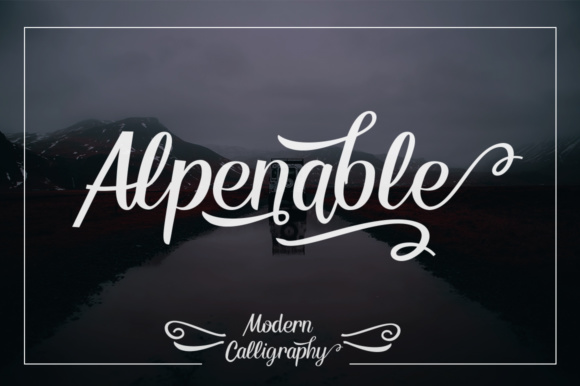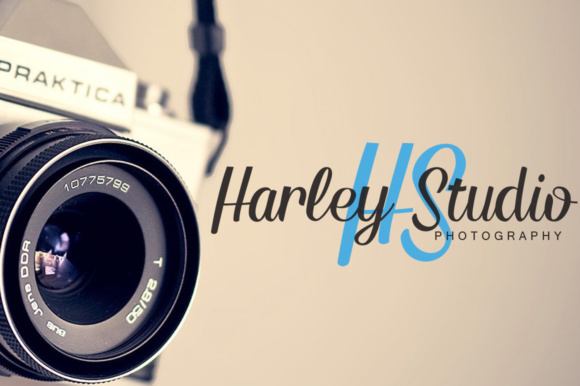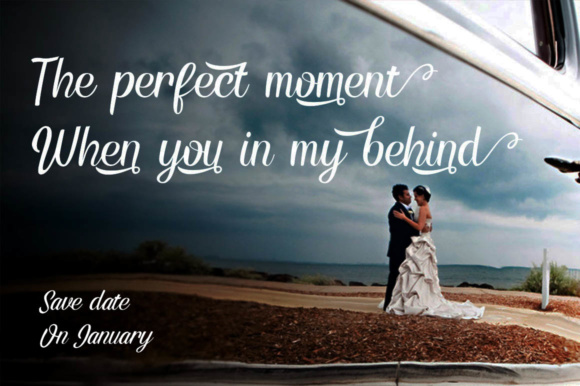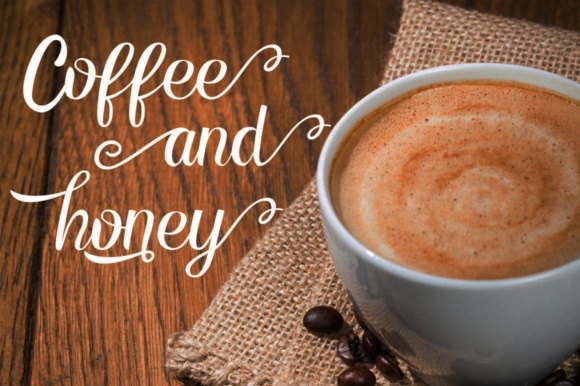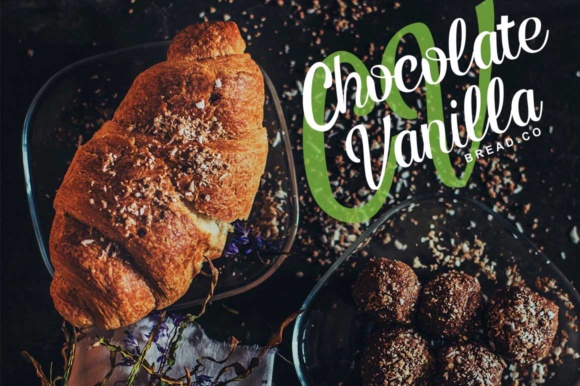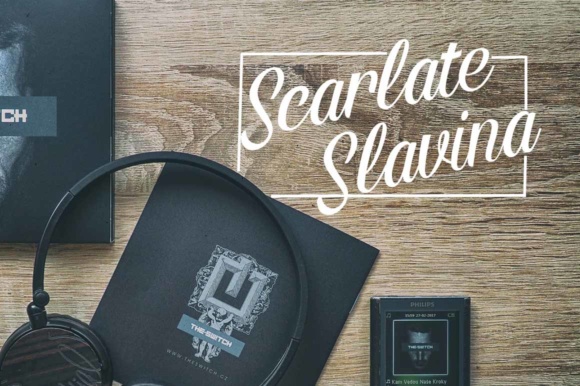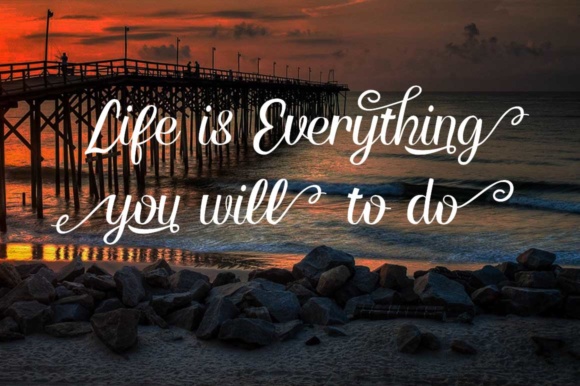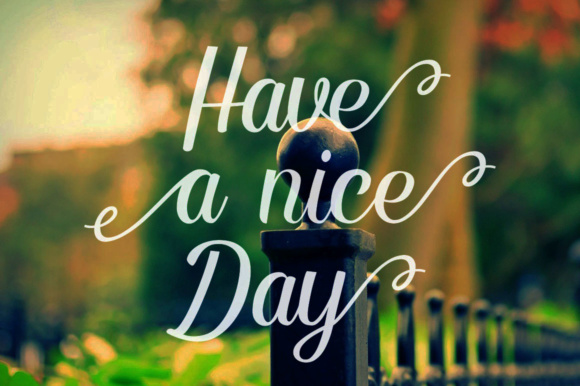
Alpenable Font
About Alpenable Font
Alpenable is a stunning display font, combining the essence of both classic and modern calligraphy. This font looks great in a wide range of designs.